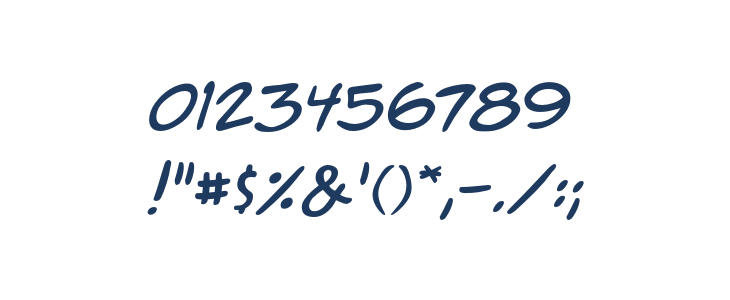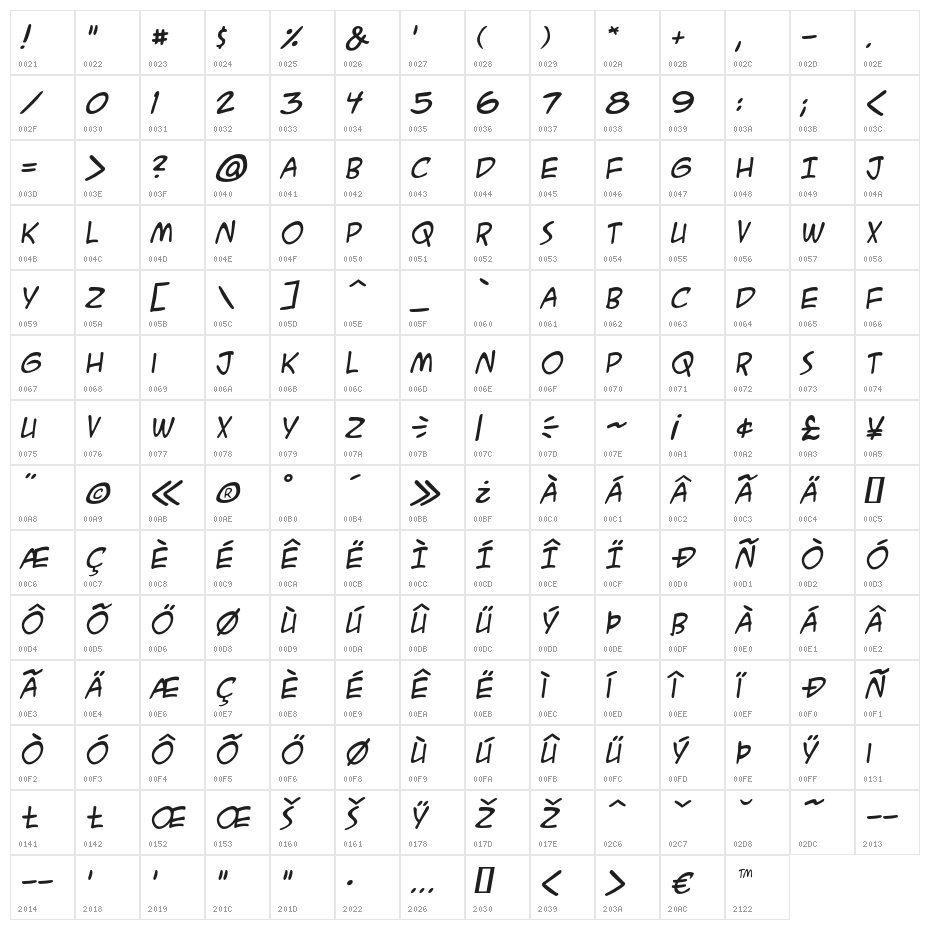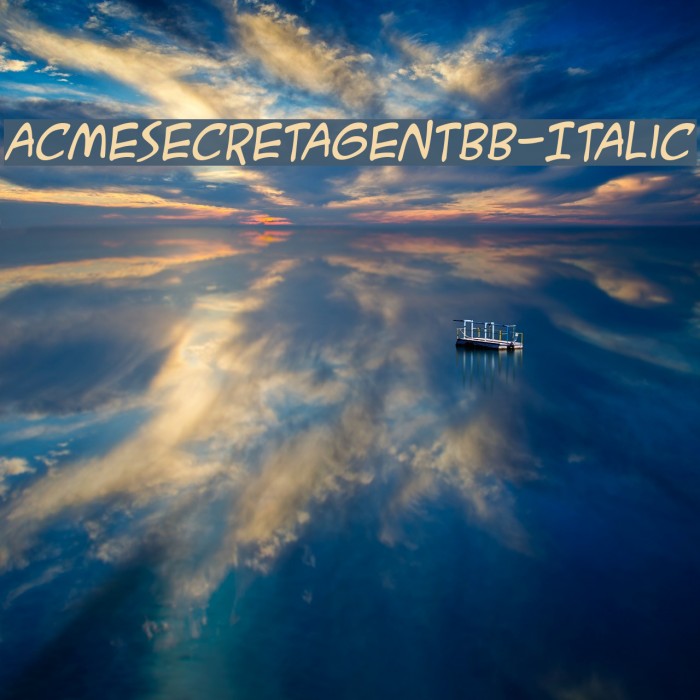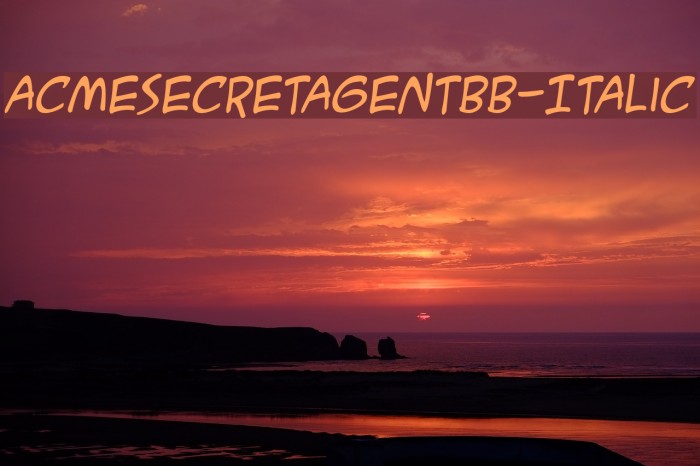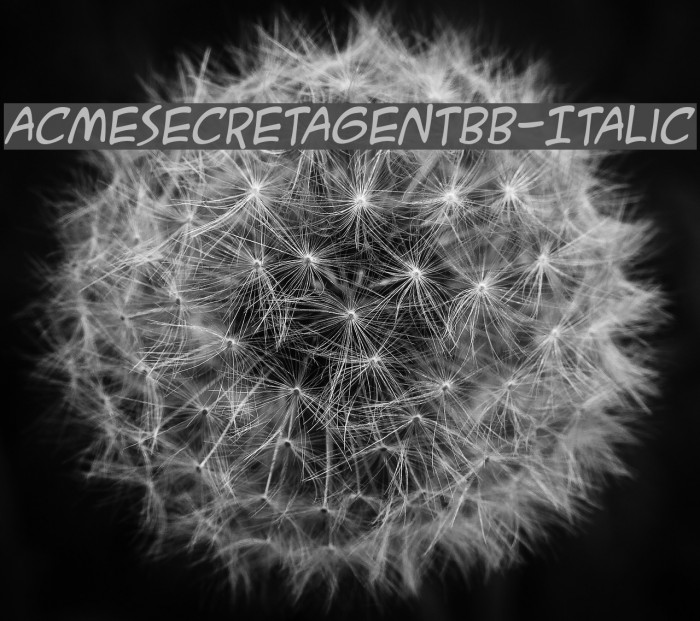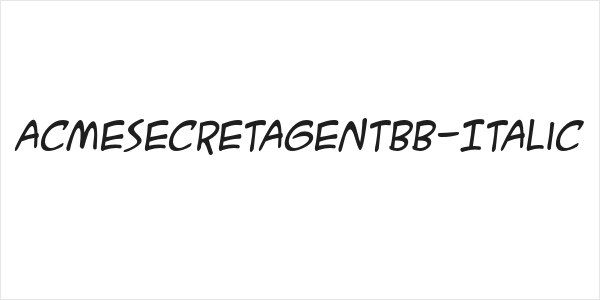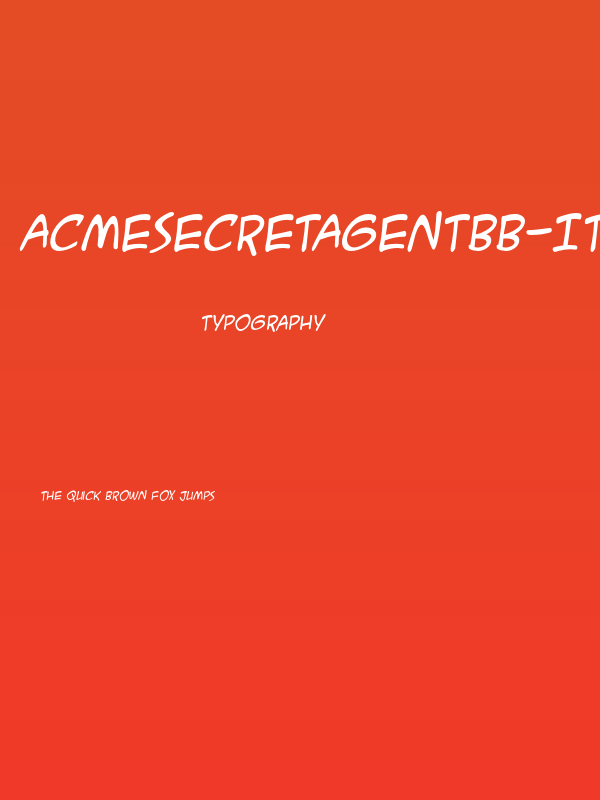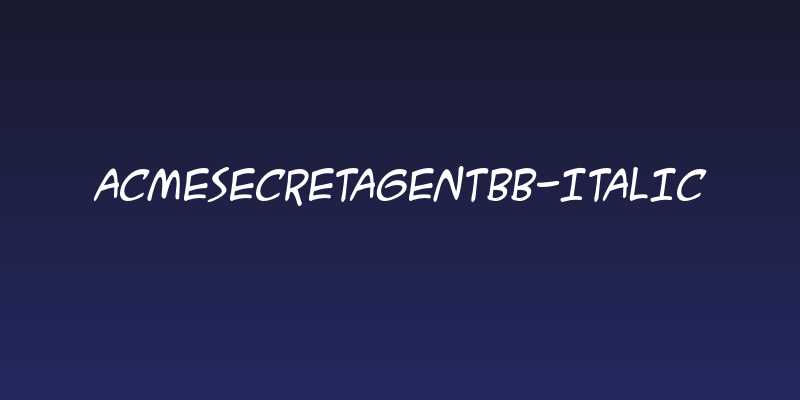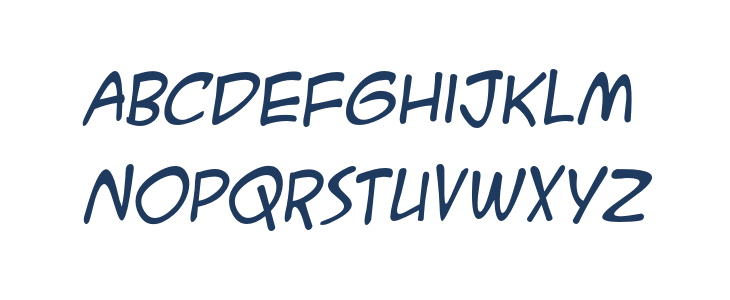
ACMESecretAgentBB-Italic Font
ACMESecretAgentBB-Italic Description
This font features a playful and dynamic style with a handwritten appearance. The characters are slightly slanted, giving an italicized look that adds a sense of motion and energy. The strokes are smooth and rounded, providing a friendly and approachable feel. The uppercase and lowercase letters maintain a consistent flow, while the numerals and special characters complement the overall design. This font is ideal for projects that require a casual and informal tone, such as greeting cards, invitations, or playful branding materials.
| Proposed Projects | Ideal for greeting cards, invitations, playful branding, and informal designs. |